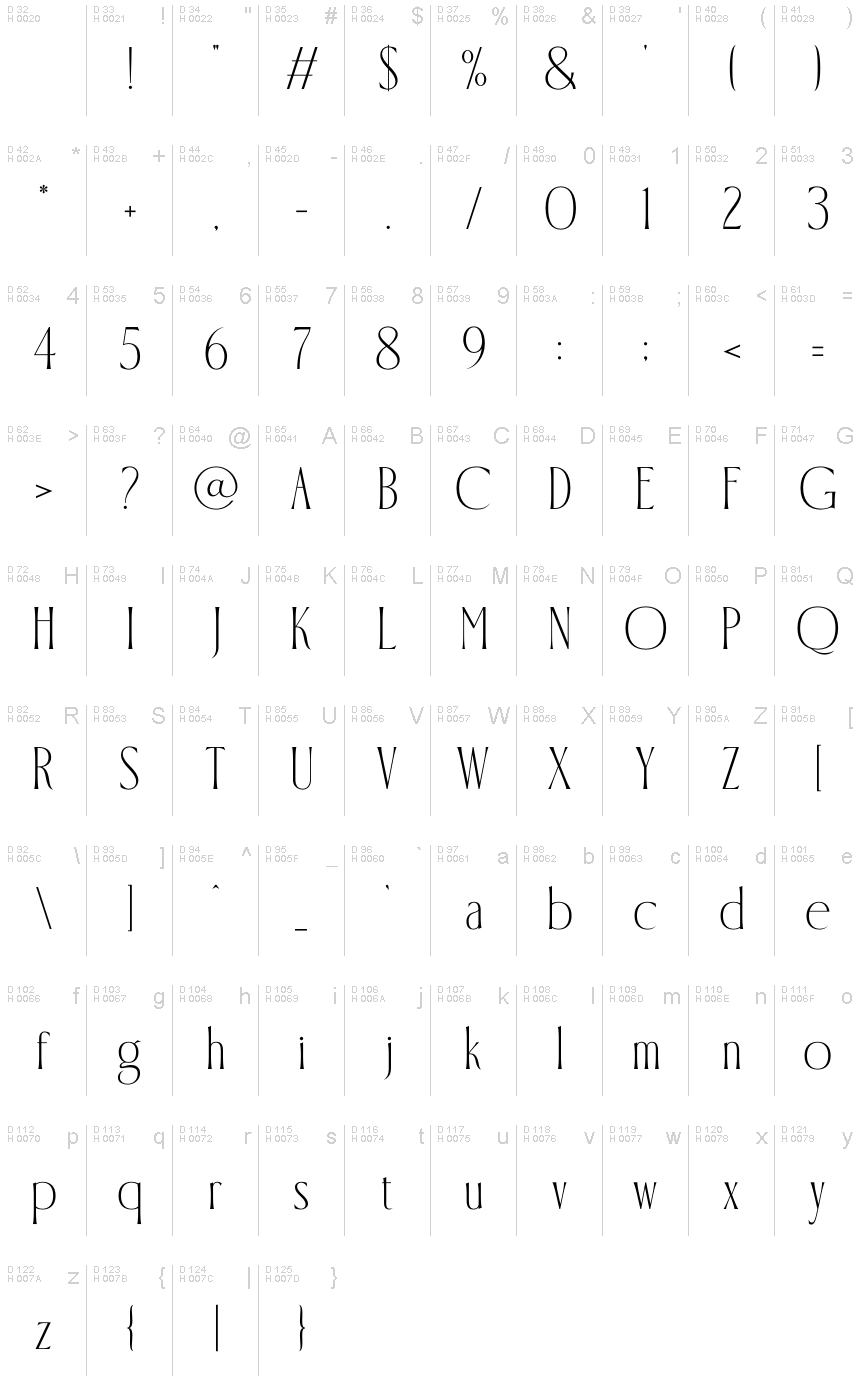
FLAROPER
Flaroper, a creation of BrandSemut, is a vintage serif that exudes charm and sophistication. Its slender silhouette and gently condensed form hark back to an era of elegance, making it perfect for projects that require a touch of nostalgia. The font's subtle curves and refined serifs add a classic aesthetic that can elevate any design.
Ideal for branding, editorial work, and invitations, Flaroper lends itself to settings where grace and understated luxury are paramount. Its unique character makes it particularly suited for the fashion and hospitality industries, infusing every word with an air of vintage exclusivity.